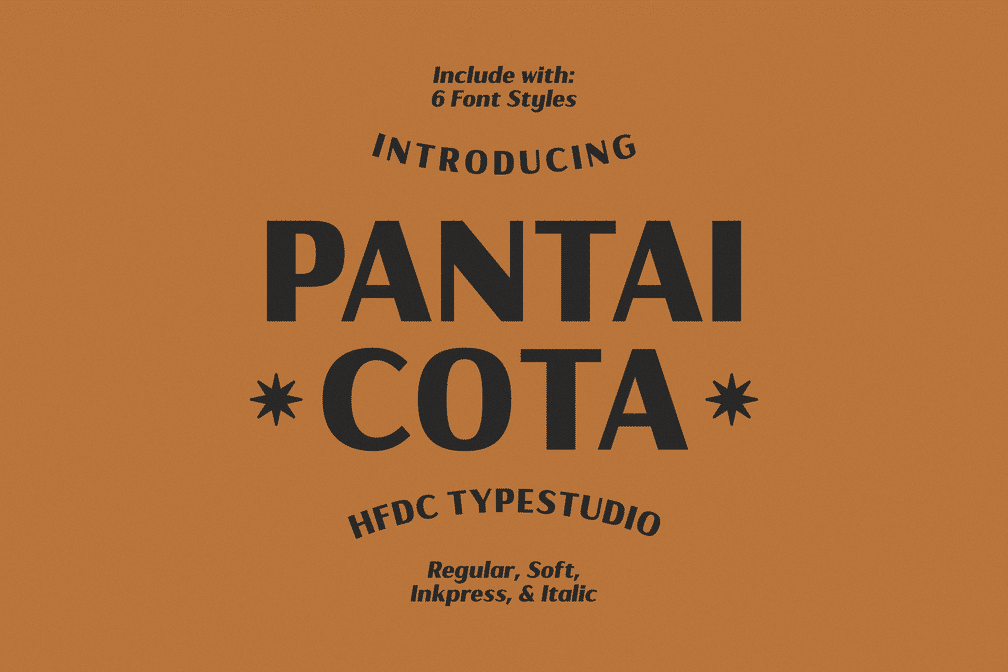
Pantai Cota HF – Vintage Retro Typeface
Pantai Cota HF is a vintage-inspired display font designed for bold branding and nostalgic design projects. This font family comes in 3 distinct styles—Regular, Soft/Rounded, and Ink Press—each available in both Upright and Italic versions, giving you a total of 6 styles to explore.
Perfectly suited for coffee menus, retro apparel branding, signage, poster design, and packaging, Pantai Cota HF blends strong letterforms with playful curves, offering both character and versatility. The Soft version delivers a smooth, rounded feel, while the Ink Press style evokes a handcrafted, distressed texture for an authentic vintage look.
• 6 font styles: Regular, Soft, Ink Press (each with Italic)
• Uppercase & lowercase
• Numbers & punctuation
• Multilingual support